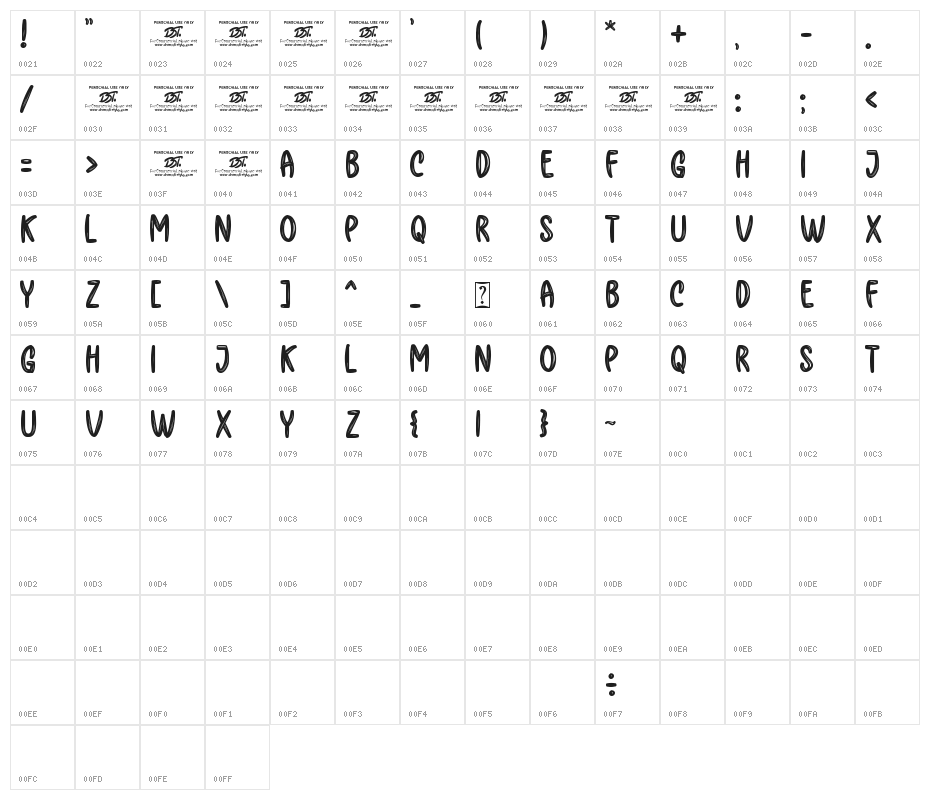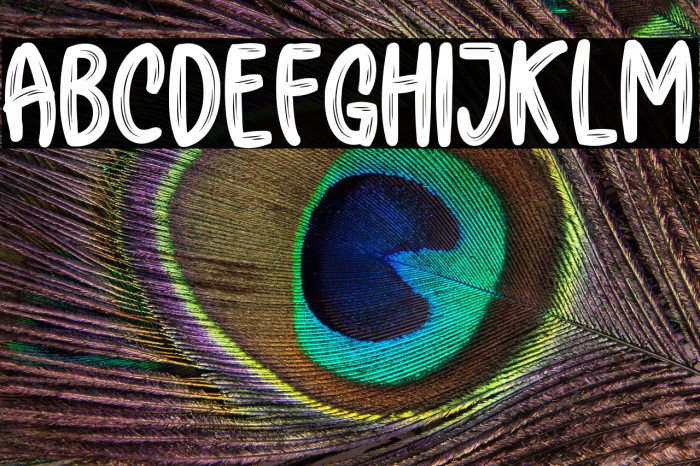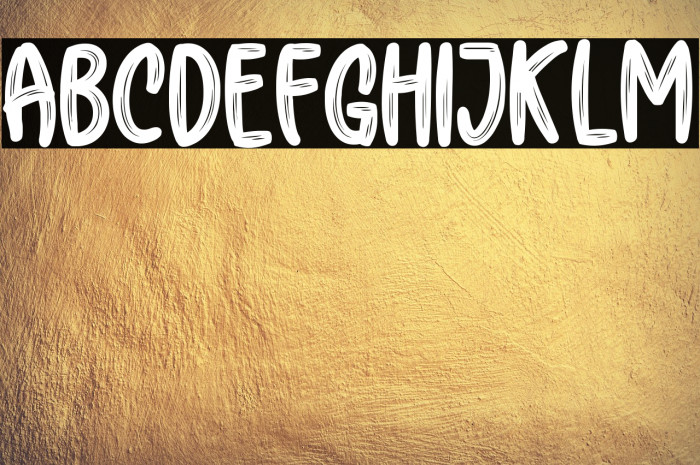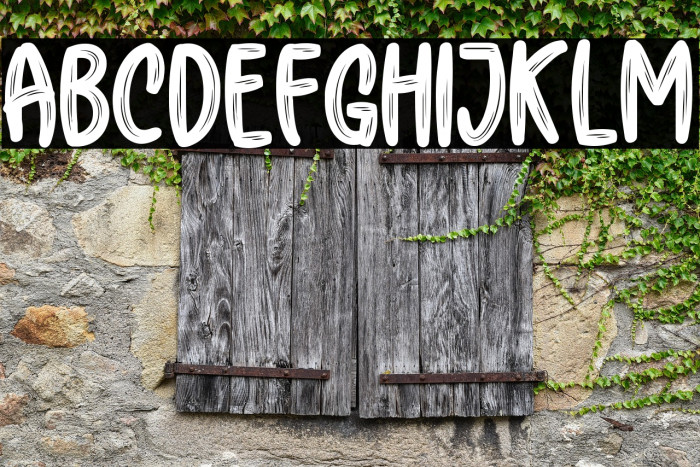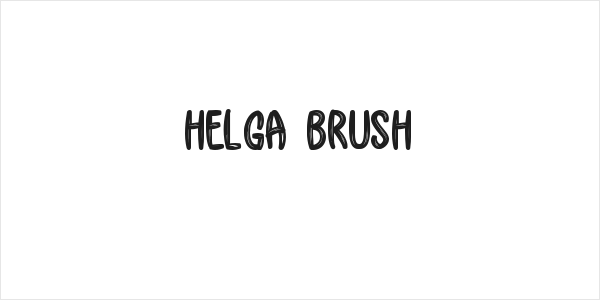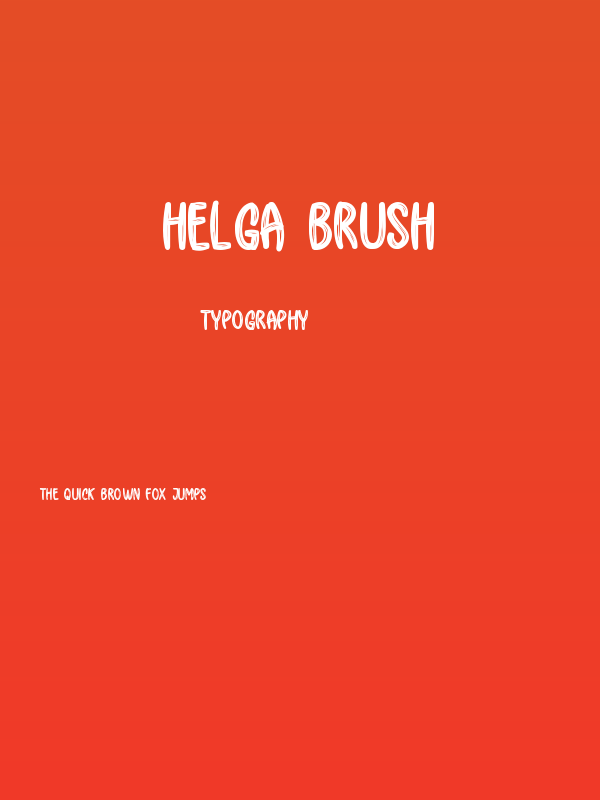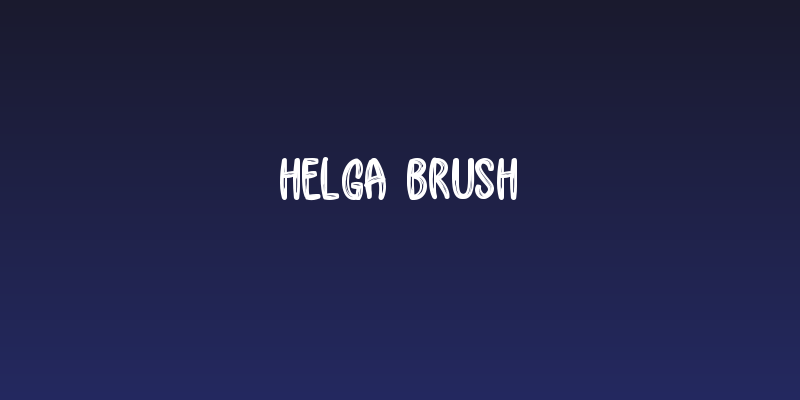
Helga Brush Font
Helga Brush Description
This font features a bold and dynamic brush style, characterized by its thick strokes and playful curves. The letters are crafted with a hand-drawn appearance, giving them a lively and energetic feel. The uppercase and lowercase characters maintain a consistent style, with rounded edges and a slightly irregular baseline that adds to the casual and artistic vibe. The numbers and special characters follow the same aesthetic, ensuring a cohesive look across all text elements. This font is ideal for projects that require a personal touch or a creative flair.